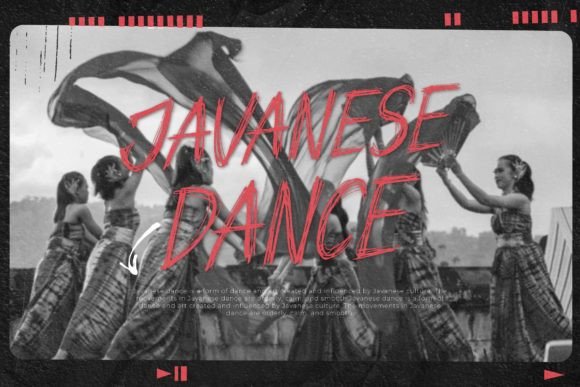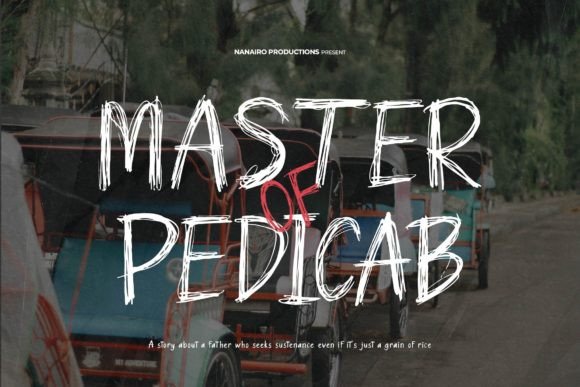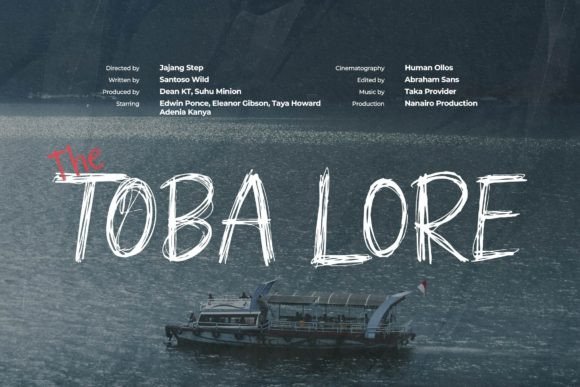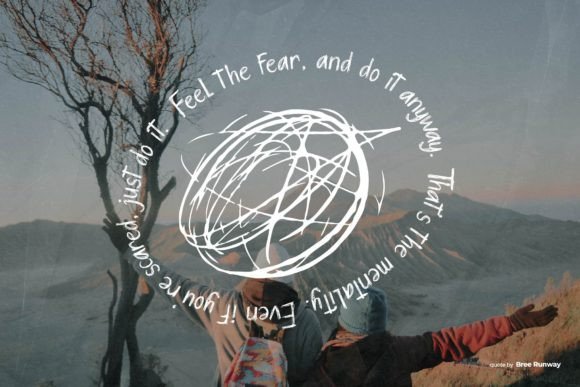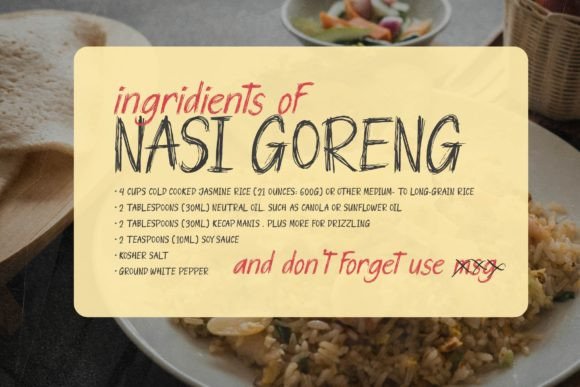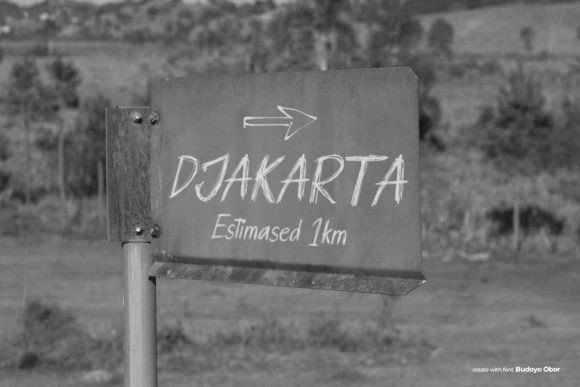
Introducing Budoyo Obor Font: Add a Personal Touch to Your Designs
Are you tired of using the same old fonts in your designs? Do you want to add a personal and creative touch to your projects? Look no further than the Budoyo Obor font! This fun and playful handwritten font is perfect for designers and crafters who want to add a unique and casual feel to their work.
What is Budoyo Obor Font?
Budoyo Obor is a handwritten font that looks like a casual scribble. It’s a fun and playful font that’s perfect for adding a personal touch to your designs. The font has a relaxed and informal feel, making it ideal for projects that require a creative and laid-back approach.
Characteristics of Budoyo Obor Font
So, what makes Budoyo Obor font so special? Here are some of its key characteristics:
- Handwritten look: Budoyo Obor has a genuine handwritten look that makes it perfect for adding a personal touch to your designs.
- Playful feel: The font has a playful and fun feel that’s ideal for projects that require a creative approach.
- Casual scribble: The font looks like a casual scribble, making it perfect for designers who want to add a relaxed and informal feel to their work.
Uses of Budoyo Obor Font
Budoyo Obor font is perfect for a wide range of design projects, including:
- Branding and logos: Add a personal touch to your brand with a unique and creative logo.
- Social media graphics: Create engaging social media graphics that stand out from the crowd.
- Invitations and cards: Add a personal touch to your invitations and cards with a handmade look.
- Packaging design: Create eye-catching packaging designs that reflect your brand’s personality.
Benefits of Using Budoyo Obor Font
So, why should you use Budoyo Obor font in your designs? Here are some of its benefits:
- Unique look: Budoyo Obor font has a unique and creative look that sets it apart from other fonts.
- Easy to read: Despite its handwritten look, Budoyo Obor font is easy to read and understand.
- Versatile: The font is versatile and can be used in a wide range of design projects.
- Time-saving: With Budoyo Obor font, you can create professional-looking designs in no time.
Tips for Using Budoyo Obor Font
Here are some tips for using Budoyo Obor font in your designs:
- Use it sparingly: Use Budoyo Obor font sparingly to add emphasis to your designs.
- Pair it with other fonts: Pair Budoyo Obor font with other fonts to create a unique and interesting look.
In conclusion, Budoyo Obor font is a fun and playful handwritten font that’s perfect for adding a personal and creative touch to your designs. With its unique look, ease of use, and versatility, it’s an ideal choice for designers and crafters who want to create professional-looking designs. So, why not give it a try and see how it can elevate your designs?